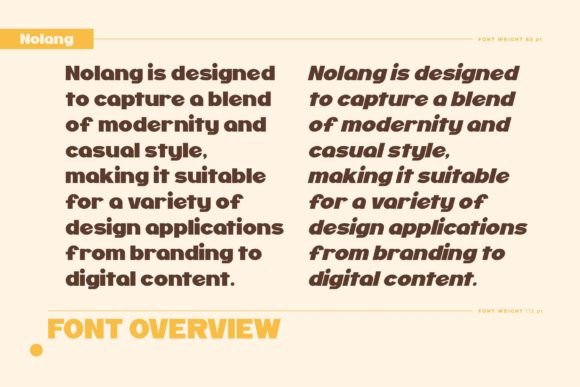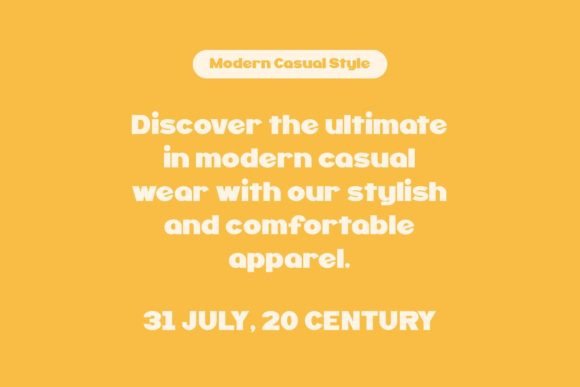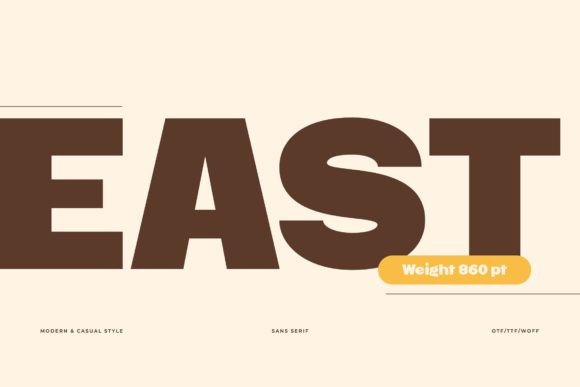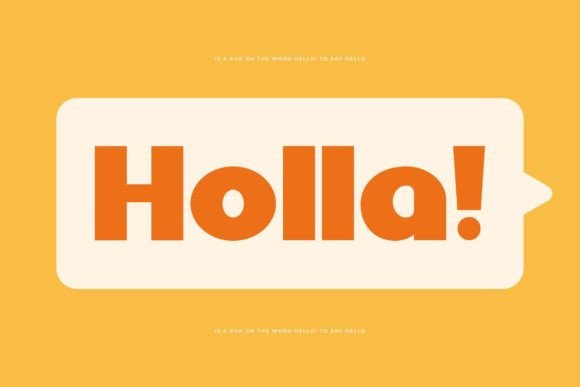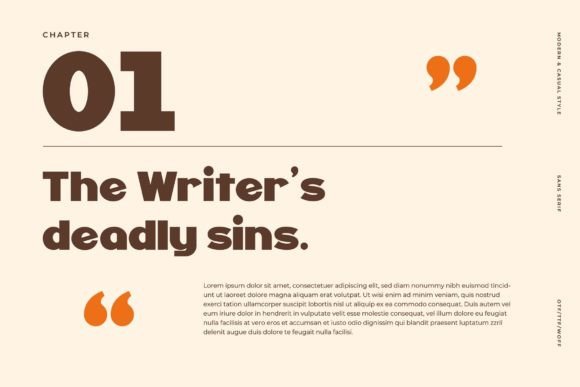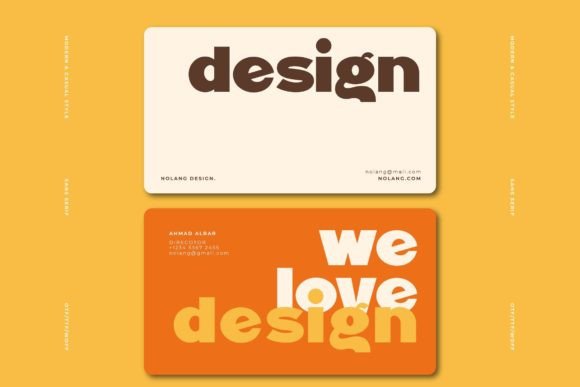
Introduction to Nolang Font
Have you ever stared at a blank canvas, waiting for inspiration to strike? For many designers, this is the moment when creativity meets opportunity. It’s the moment when the right font can make all the difference between a good design and a great one. That’s where Nolang Font comes in – a bold display sans serif font that’s perfect for grabbing attention and making a statement.
With its thick, modern lines and easy-to-read design, Nolang Font is a valuable resource for designers looking to elevate their creative projects. Whether you’re working on a poster, advertisement, or even a simple website, this font is sure to give your design a strong and confident look. And the best part? It’s available for free download, making it a high-quality design resource that won’t break the bank.
Whether you’re a seasoned designer or just starting out, Nolang Font is a great addition to any design toolkit. Its clean lines and simple design make it easy to use on a transparent background or as a bold headline, giving you endless possibilities for creative expression.
Key Features of Nolang Font
- High-quality design resource with a transparent background, ideal for creative projects requiring a clean and minimalist aesthetic.
- Includes a wide range of characters, including uppercase and lowercase letters, numerals, and punctuation marks, supporting multiple languages.
- Unique characteristics include a modern and sleek design, with subtle nuances in the letterforms, adding depth and visual interest to any creative project.
Honest Review: Nolang Font
I recently stumbled upon the Nolang Font, and I’m excited to share my honest thoughts with fellow designers. As a design resource, Nolang Font offers a unique and creative approach to typography.
What works well is the versatility of this font. It’s perfect for high-quality designs, especially those that require a touch of elegance and sophistication. ✨ The font’s clean lines and modern aesthetic make it an excellent choice for various creative projects.
However, I do have some concerns about the font’s limitations. ⚠️ The font is only available in a single weight, which may limit its versatility in certain designs. Additionally, the font’s usage is restricted for commercial purposes, which may be a drawback for some designers.
Overall, I’m impressed with the Nolang Font’s design and functionality. While it may have some limitations, it’s a valuable resource for designers looking to add a touch of elegance to their creative projects. With its high-quality design and free download, it’s definitely worth checking out.
Nolang Font
The Nolang Font is a versatile and creative design resource ideal for various projects, offering a high-quality, transparent background that can be easily customized to suit your needs.
The Nolang Font is ideal for a variety of creative projects, including graphic design, branding, and marketing materials. Its transparent background and high-quality design make it a popular choice for designers and non-designers alike.